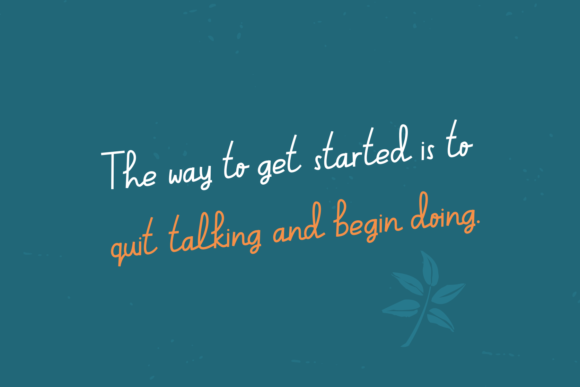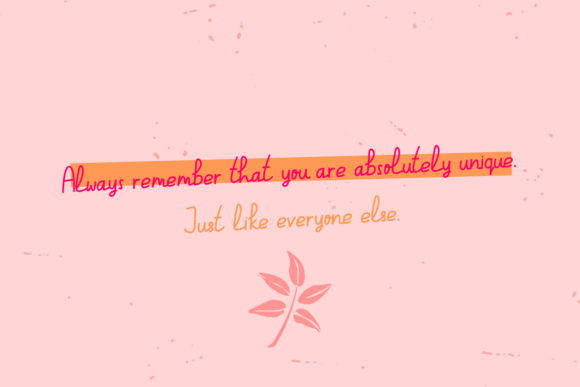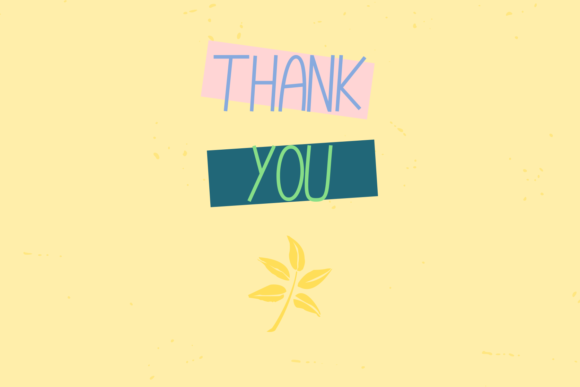
About Avocado Ice Font
Avocado Ice is a script font that has a unique style. It has a clean, thin and smooth vibe and it will be a hit for any design that you want to add it to. Use this font to create stationary art, wedding invitations, greeting cards, or a social media posts.